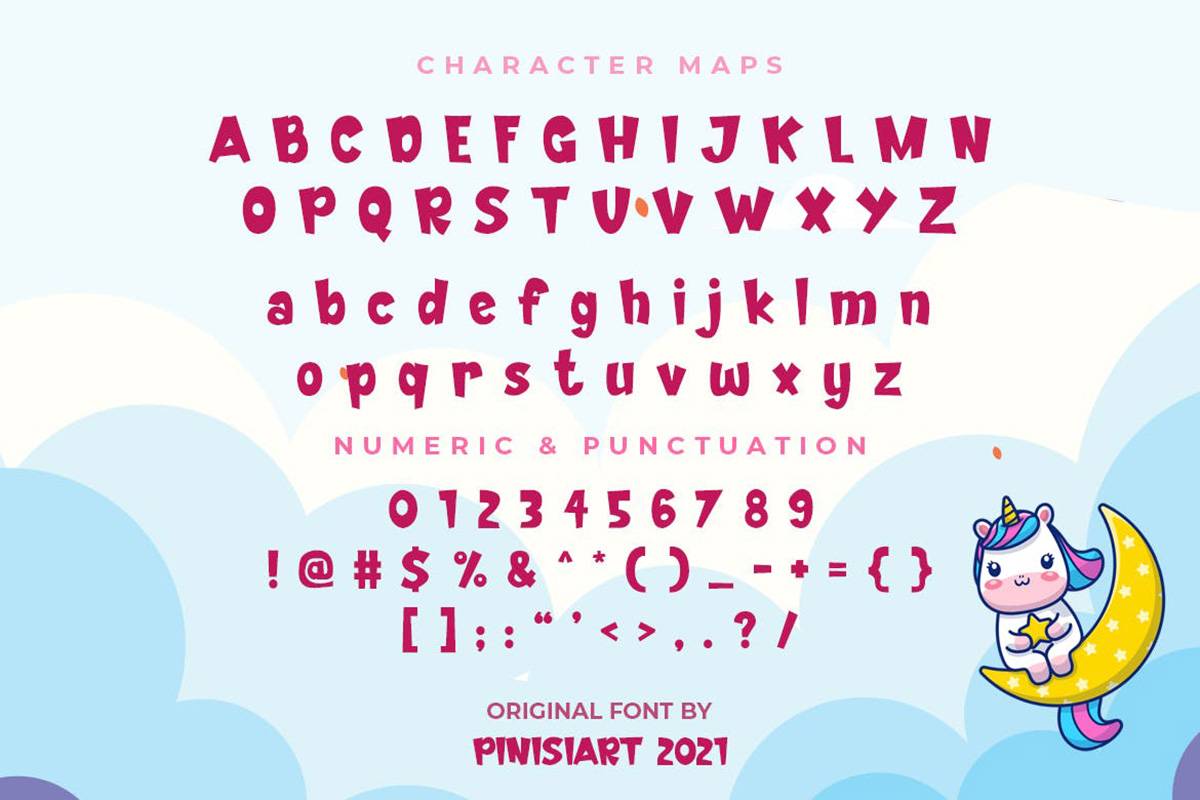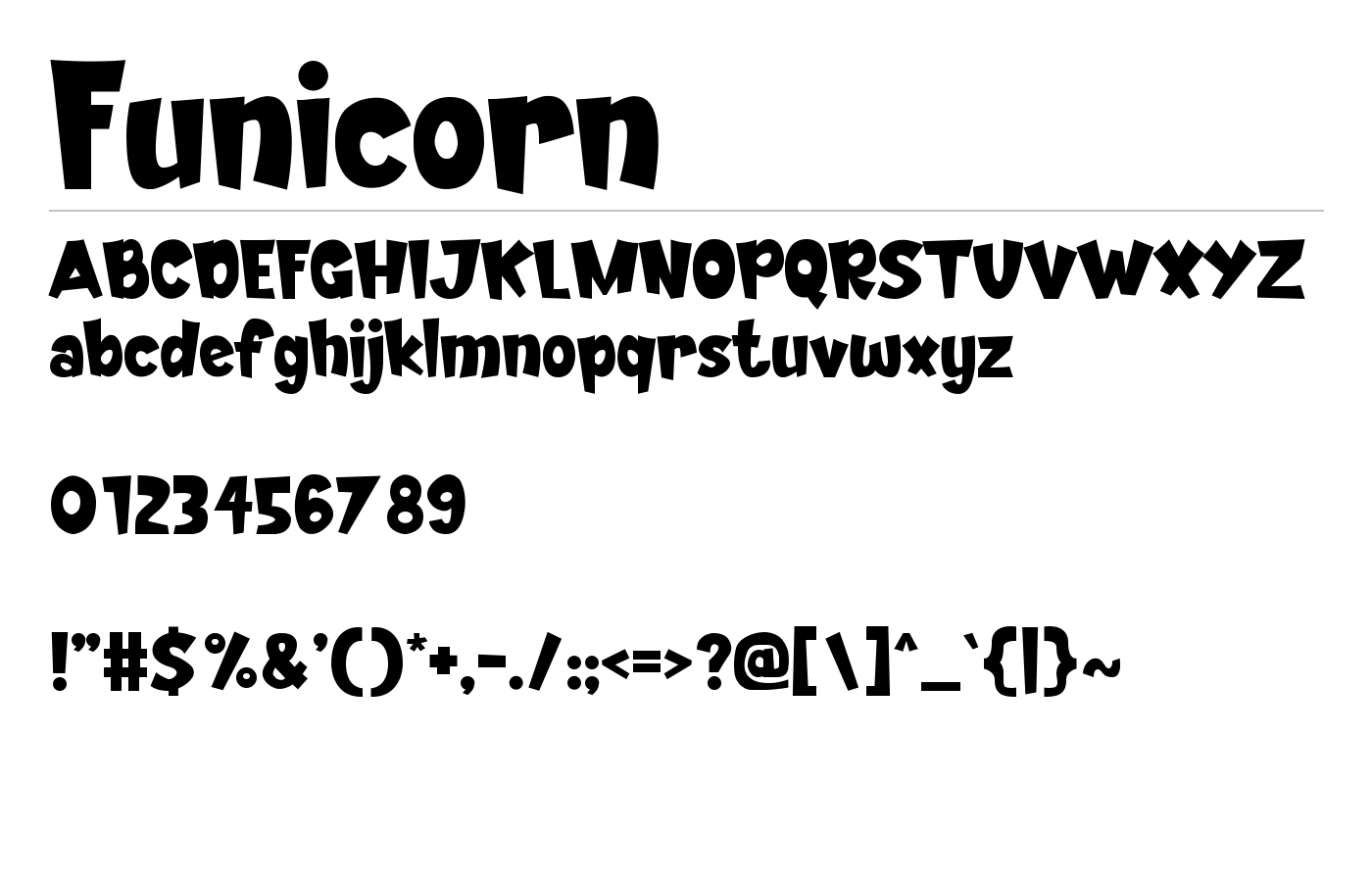
Funicorn is a playful and bold sans serif font with a quirky, hand-drawn feel. Its chunky, irregular letterforms and uneven baseline create a fun, friendly personality that's perfect for children’s materials, informal branding, and creative projects. This font works best in headlines and logos where a whimsical, approachable tone is desired.
Funicorn Font
About Funicorn Font